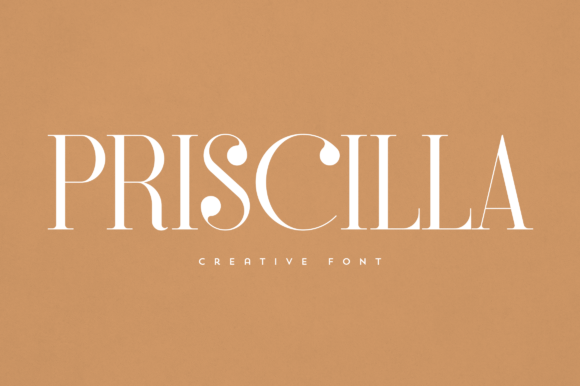
Step into the world of Priscilla, a captivating serif font family that will transform your design endeavors into captivating expressions of artistic brilliance. With its alluring curves and elegant lines, Priscilla is not just a font; it's an artistic gateway to unique typography, ready to elevate your creative projects to new heights.
Immerse yourself in the beauty of Priscilla's serifs, meticulously crafted to add a touch of sophistication and timeless charm to your designs. Each letterform dances across the page, carrying a story of elegance and grace. Whether you're designing a logo for your budding business, crafting a brand identity that exudes professionalism, or simply adding a dash of flair to your personal projects, Priscilla is your font of choice.
With its versatility, Priscilla effortlessly adapts to a myriad of design styles. It shines as a beacon of elegance in branding projects, where its refined strokes create a lasting impression. Homeware designs take on a new life, adorned with Priscilla's timeless beauty. Product packaging becomes an art form, infused with the font's regal presence. Magazine headers command attention with Priscilla's captivating charm. And as a stylish text overlay, Priscilla transforms ordinary images into captivating visual masterpieces.
Priscilla is more than just a collection of characters; it's an invitation to unlock your creative potential and unleash a world of typographic wonders. Its versatility empowers you to express your individuality, whether it's through bold statements or subtle nuances. Priscilla isn't just a font; it's an extension of your artistic soul, enabling you to weave tales of elegance and enchantment with every design you create.
Dare to embrace Priscilla's allure, and witness the transformation of your designs into captivating works of art. Let your creativity soar, knowing that Priscilla is your trusted companion, guiding you towards typographic greatness.